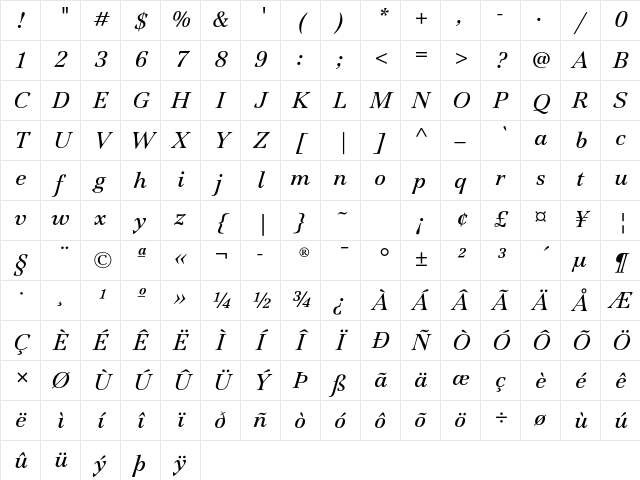
Complete Jamille ITC Std Book Italic glyph index. Displaying only characters natively supported by Jamille ITC Std Book Italic font.
Jamille ITC Std is a composed and adaptable typeface that performs quietly and consistently across a wide range of design contexts. The slanted form adds forward momentum and visual energy.